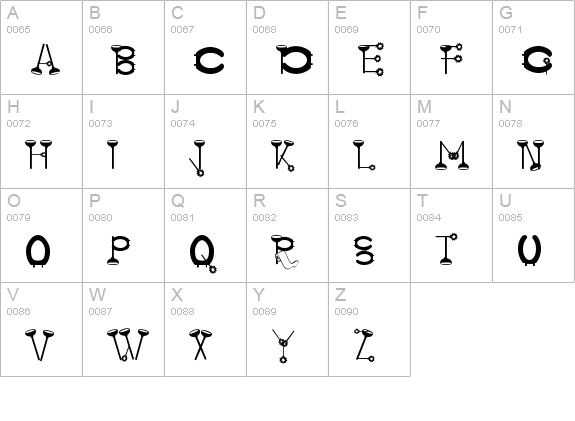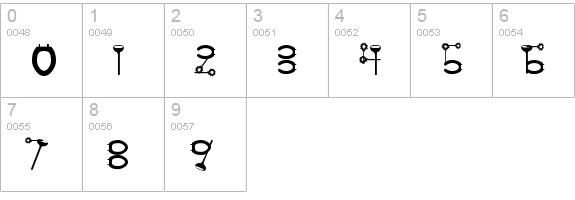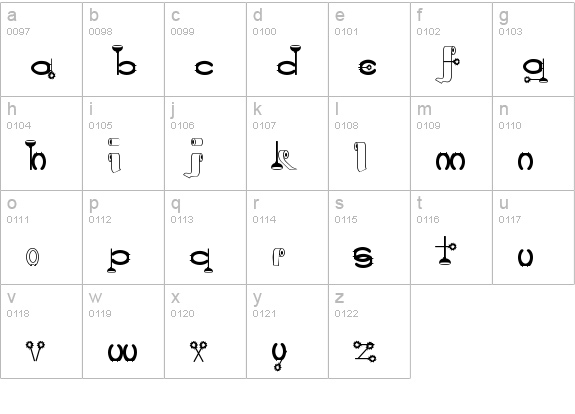
WaterCloset Font Details
WaterCloset font is a stunning and versatile typeface that will add a touch of elegance and sophistication to any design project. This font is perfect for creating eye-catching logos, stylish headlines, or beautiful typography for your website or blog. With its clean lines and modern aesthetic, WaterCloset font is sure to make a lasting impression. But what sets WaterCloset font apart from other fonts is that it is not only visually appealing, but also completely free. That's right, you can download this incredible font for absolutely no cost at FontsMarket.com. This means that you can enhance your designs with the unique charm of WaterCloset font without breaking the bank. Whether you are a professional designer or a hobbyist, WaterCloset font is a must-have in your font collection. Its versatility and timeless appeal make it suitable for a wide range of design projects, from branding and advertising to invitations and social media graphics. The possibilities are truly endless with this remarkable font. So why wait? Experience the beauty and versatility of WaterCloset font for yourself by downloading it freely at FontsMarket.com. Start creating captivating designs that will leave a lasting impression on your audience today.